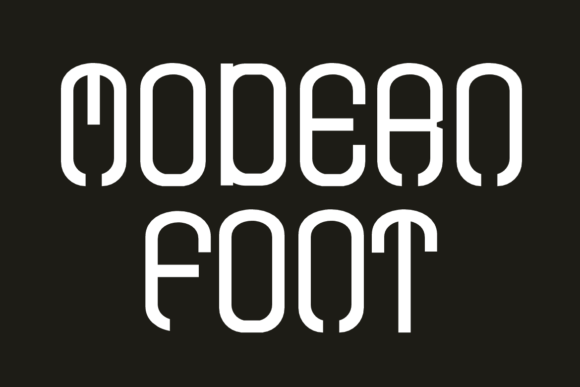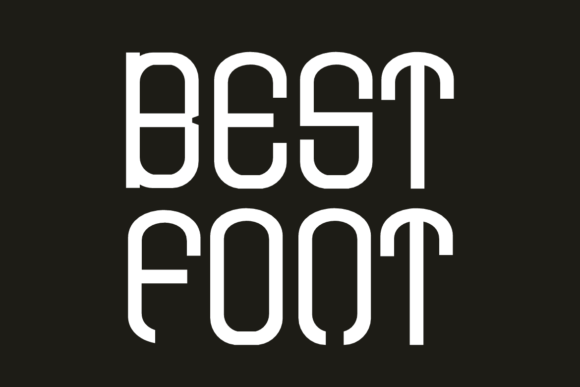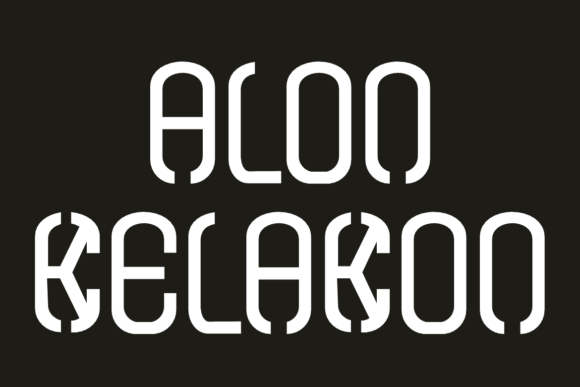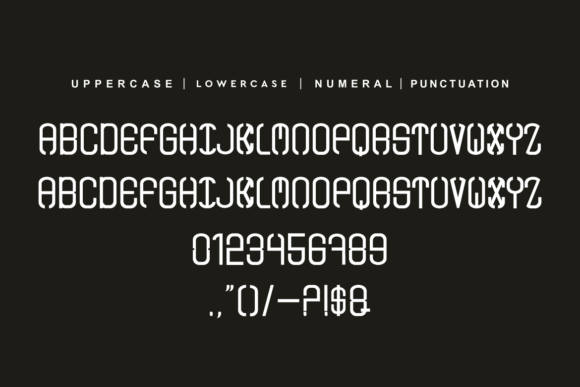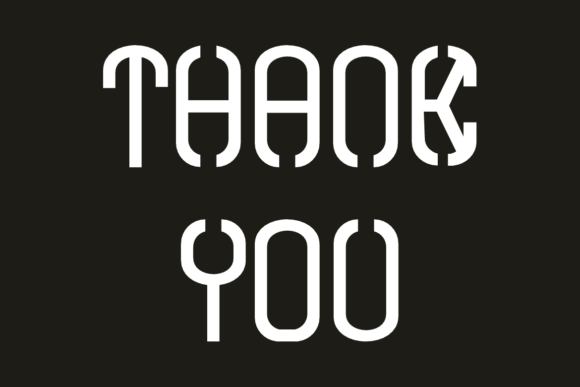
Cubosage Font: Elevate Your Design with Geometric Elegance
In the world of typography, fonts play a crucial role in conveying the message and aesthetic of a design project. With numerous font options available, finding the perfect one that combines style, simplicity, and sophistication can be a daunting task. However, if you’re looking for a modern sans-serif typeface that exudes geometric elegance, look no further than Cubosage Font. In this article, we’ll explore the features, benefits, and uses of Cubosage Font, and why it’s a must-have for designers and crafters.
What is Cubosage Font?
Cubosage Font is a sleek and modern sans-serif typeface designed to bring a contemporary touch to any design project. Its clean lines, well-defined edges, and geometric shapes make it a perfect fit for branding, headlines, and minimalist designs. With its harmonious balance of simplicity and sophistication, Cubosage Font is an excellent choice for designers seeking a font that can elevate their work.
Key Features of Cubosage Font
- Modern Sans-Serif Typeface: Cubosage Font boasts a modern sans-serif design that is both clean and elegant.
- Geometric Elegance: The font’s geometric shapes and well-defined edges give it a unique and sophisticated look.
- Clean Lines: Cubosage Font features clean lines that make it perfect for designs that require a high level of legibility.
Benefits of Using Cubosage Font
Cubosage Font offers several benefits that make it an excellent choice for designers and crafters. Some of these benefits include:
- Versatility: Cubosage Font is perfect for a wide range of design projects, including branding, headlines, and minimalist designs.
- Legibility: The font’s clean lines and well-defined edges make it highly legible, even at small sizes.
- Uniqueness: Cubosage Font’s geometric elegance sets it apart from other sans-serif typefaces, making it a great choice for designers seeking a unique look.
- Easy to Pair: The font’s simplicity and elegance make it easy to pair with other fonts, allowing designers to create harmonious and visually appealing typography.
Uses of Cubosage Font
Cubosage Font is a versatile typeface that can be used in a variety of design projects, including:
- Branding: Cubosage Font is perfect for creating logos, business cards, and other branding materials that require a modern and sophisticated look.
- Headlines: The font’s clean lines and geometric elegance make it an excellent choice for headlines, titles, and other display text.
- Minimalist Designs: Cubosage Font is ideal for minimalist designs that require a simple yet elegant typography.
- Digital Designs: The font is also suitable for digital designs, including website headers, social media graphics, and more.
In conclusion, Cubosage Font is a modern sans-serif typeface that offers a unique blend of geometric elegance, simplicity, and sophistication. With its clean lines, well-defined edges, and multi-format support, Cubosage Font is an excellent choice for designers and crafters seeking a versatile and stylish font for their design projects. Whether you’re working on branding, headlines, or minimalist designs, Cubosage Font is sure to elevate your work and leave a lasting impression.